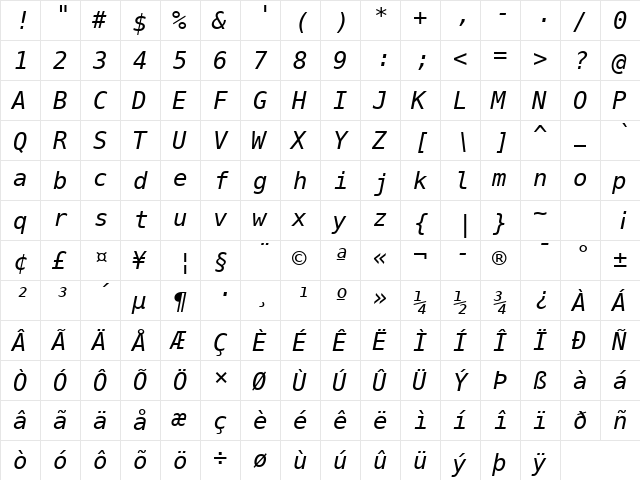
Bitstream Vera Sans Mono Oblique
| Foundry | Bitstream Inc. |
Design Context for Bitstream Vera Sans Mono Typeface
Bitstream Vera Sans Mono brings the precise, column-aligned rhythm of monospaced typography to designs that value technical clarity and systematic order. The slanted form adds forward momentum and visual energy.
A natural fit for code editors, technical documentation, developer-focused branding, and terminal-inspired UI.
Pro Tip: Pair Bitstream Vera Sans Mono with a proportional sans for UI contexts where code-style labels and regular body copy need to coexist.